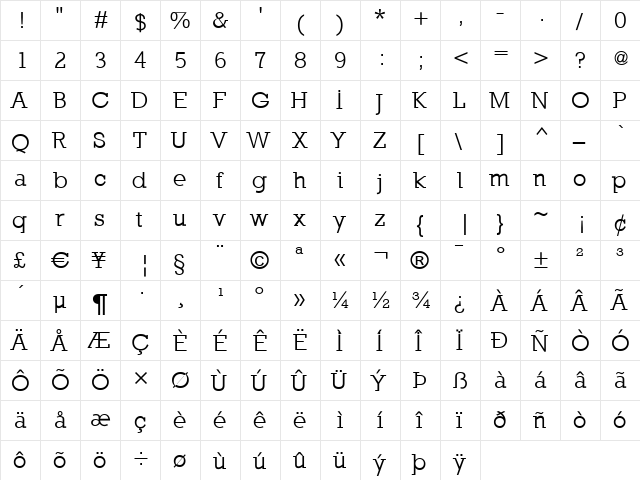
Nilland Bold
Design Context for Nilland Typeface
Nilland takes a measured approach to typography — its balanced proportions and neutral character make it a reliable workhorse for both digital and print work. Its bold stroke weight gives it real presence on the page.